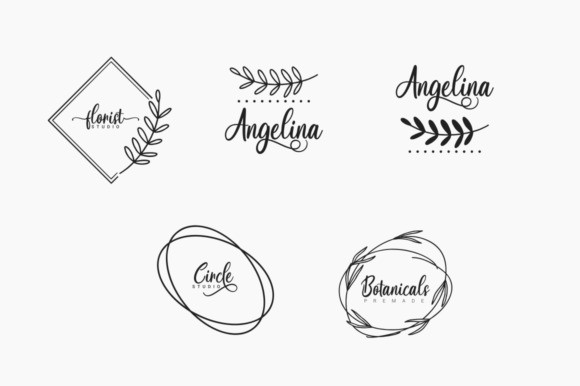
Sweengly Sweet Script Font
Sweengly is a sweet script font, will be suitable for any projects such as logo’s, branding projects, homeware designs, product packaging, mugs, quotes, posters, shopping bags, t-shirts, book covers, name card, invitation cards, greeting cards, label, photography, watermark, special events, and all your other lovely projects that need beautiful handwriting taste.
Designer Name: Naharstd